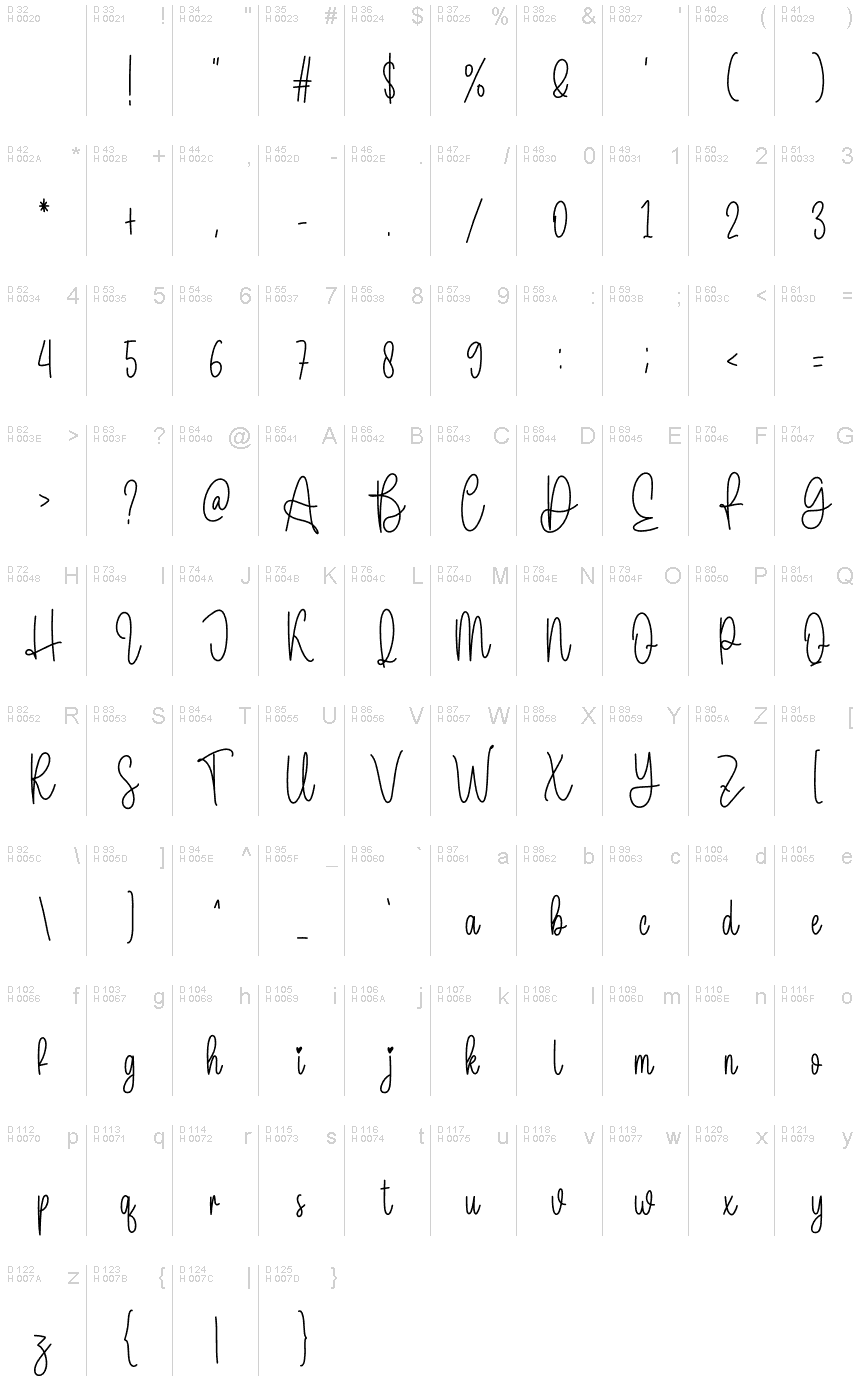
Wedding Is Comming
Wedding Is Comming, designed by Scratchones, exudes a sense of personal touch and elegance with its handwritten style. The light font weight adds a delicate and airy quality to the script, making it an excellent choice for invitations, greeting cards, and branding projects that require a touch of intimacy. Its condensed width offers a unique aesthetic that marries well with sophisticated designs looking to communicate grace and exclusivity.
This font's charm lies in its ability to blend the casual flair of handwriting with the poise of classic calligraphy, creating an inviting atmosphere for any celebratory occasion.